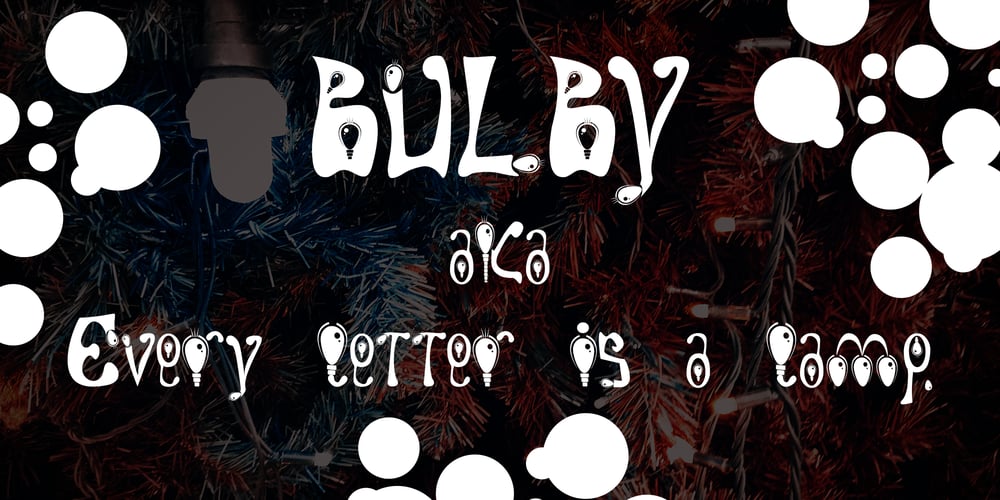
Bulby Font Family was designed by Mircea Boboc and published by Mircea Boboc. Bulby contains 1 styles and family package options. After creating an original light bulb symbol from scratch, I incorporated it in all letters and punctuation signs, ensuring a distinct rhythm and creative variation.The result is a highly recognizable font with a unique appearance, which can inspire you as a designer in many imaginative directions.This font is especially fitting for Christmas-themed projects where light installations take center stage. Similarly, if you represent a light bulb company, consider utilizing it in your indoor presentations or social media posts to showcase the playful voice of your brand.After all, everybody needs their light bulb moment.